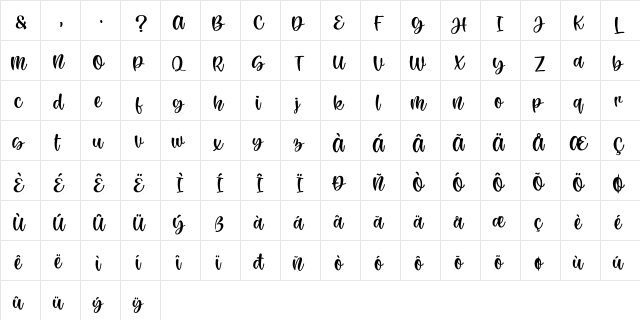
Rachel Lovelyn Regular
| Foundry | Kotakkuningstudio |
| Designer | M Arif Dwi Prasetyo & Eko Nurcahyo |
Design Context for Rachel Lovelyn Typeface
Rachel Lovelyn is a composed and adaptable typeface that performs quietly and consistently across a wide range of design contexts.